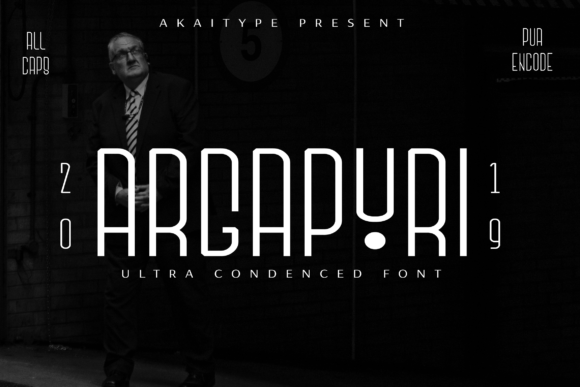
The Ultimate Guide to Argapuri Font: Elevate Your Designs with this Modern Display Font
An Honest Review of Argapuri Font
What I Love About Argapuri Font
• ✨ Sleek and modern design: Argapuri Font has a super slim and clean design that instantly elevates any creation.
• ✅ Versatile: Whether you’re working on a branding project, a website, or a social media graphic, Argapuri Font adapts seamlessly to any topic or theme.
• 💡 Excellent for headlines and titles: The font’s bold and eye-catching style makes it perfect for grabbing attention and adding emphasis to your text.
While Argapuri Font is an amazing addition to any font library, there are a few things to keep in mind:
• 🤔 Limited use for body text: Due to its slim design, Argapuri Font may not be the best choice for longer blocks of text. It’s best used for headlines, titles, and short paragraphs.
• ⚠️ May not work well with all design styles: Argapuri Font’s modern and sleek design may not mesh well with more traditional or vintage design styles.
The Backstory of Argapuri Font
Argapuri Font was designed with the modern designer in mind. Its creator wanted to craft a font that was both sleek and elegant, perfect for headlines and titles. Inspired by the beauty of urban landscapes, Argapuri Font is a true reflection of modern design.
Q: What type of designs is Argapuri Font best suited for?
A: Argapuri Font is perfect for modern and sleek designs, such as branding, websites, and social media graphics.
Q: Is Argapuri Font difficult to read?
A: Argapuri Font is designed to be easy to read, even at smaller sizes. However, its slim design may make it less suitable for longer blocks of text.